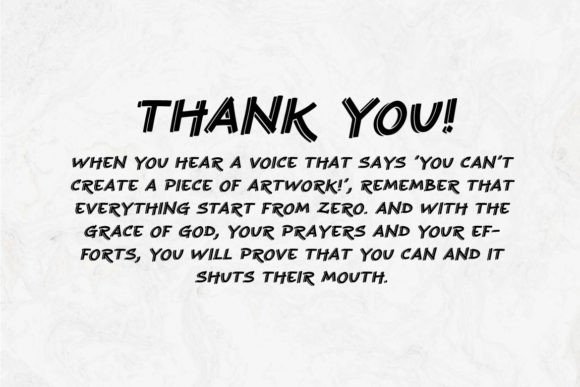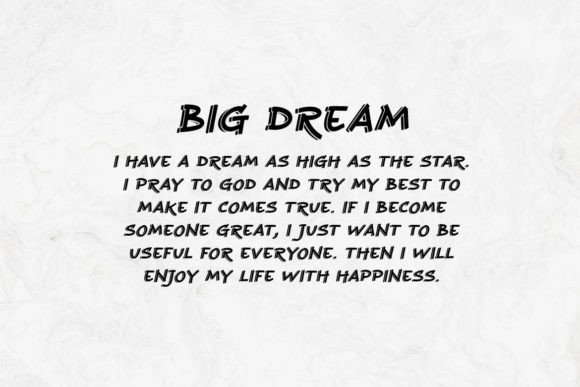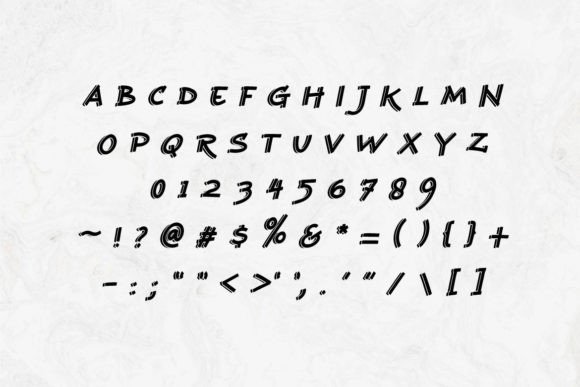
Introduction to Jacks Font
Have you ever stared at a blank page, feeling like the perfect design is just out of reach? That’s where Jacks Font comes in – a game-changing, all-caps display font that can elevate your creative projects to new heights.
Whether you’re working on a high-profile branding campaign or a personal project, the right font can make all the difference. With Jacks Font, you’ll have the perfect tool to bring your vision to life. Its sleek, modern design is sure to captivate your audience and leave a lasting impression.
This versatile font is a valuable resource for designers, offering a high-quality, free download that can be used in a variety of creative contexts – from social media graphics to presentation slides, and everything in between. With its transparent background and bold, eye-catching style, Jacks Font is the perfect design resource to take your creative project to the next level.
Key Features of Jacks Font
- Designed with a unique, stylish aesthetic suitable for modern design applications
- Includes multiple font styles and weights for added versatility
Honest Review: Jacks Font
What works well: ✨ First, I appreciate the fact that Jacks Font is available for free download, making it an excellent addition to my design library. The font’s transparent background allows for seamless integration with various backgrounds, giving me more flexibility in my designs. The font itself is clean, modern, and versatile, making it perfect for a wide range of creative projects.
- High-quality design: The font is clean, modern, and versatile, making it perfect for various creative projects.
Limitations: ⚠️ While Jacks Font is a great resource, I do wish it had more weight and bold options. Additionally, the font’s compatibility with older versions of software is limited.
Overall impression: Jacks Font is a solid addition to any designer’s library. While it has some limitations, its free download and transparent background make it a valuable resource for creative projects. I would definitely recommend it to fellow designers looking for a high-quality font.
Design Tips and Tricks
To get the most out of Jacks Font, use it in combination with other design elements, such as graphics and images. You can also experiment with different font sizes, colors, and styles to create a unique look.
Jacks Font is a versatile font that can be used in a variety of creative projects, including:
Brochures and flyers
Posters and advertisements
Websites and web pages
Business cards and letterheads